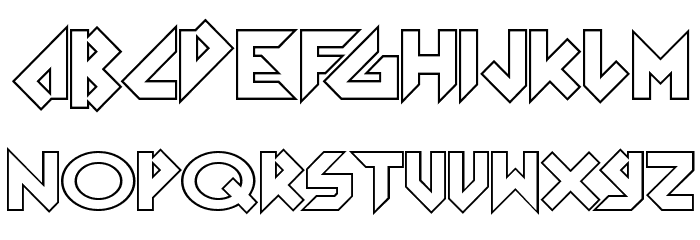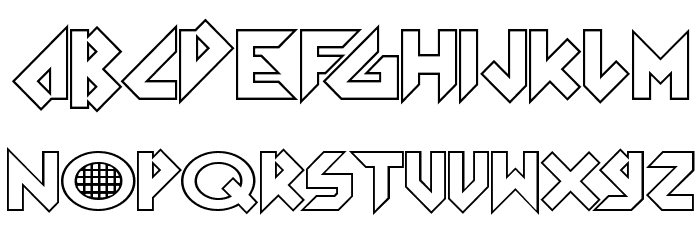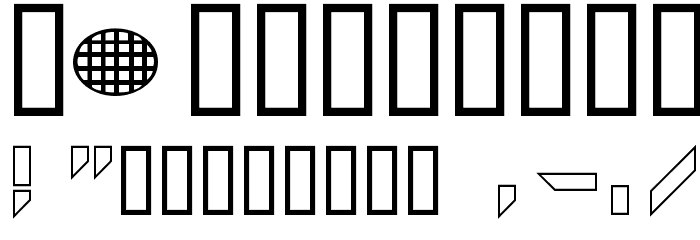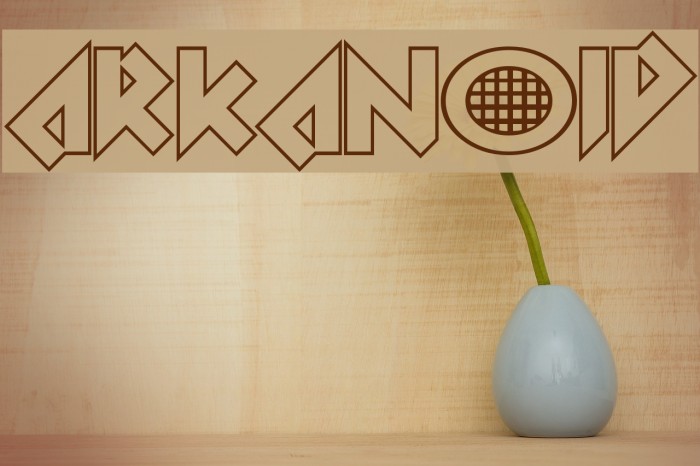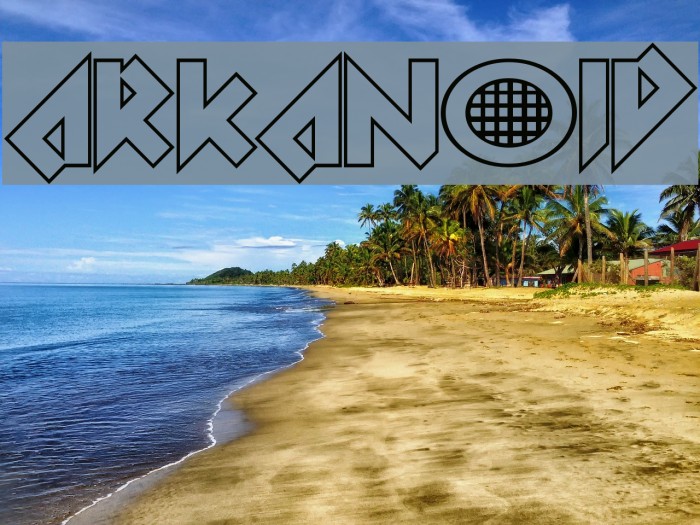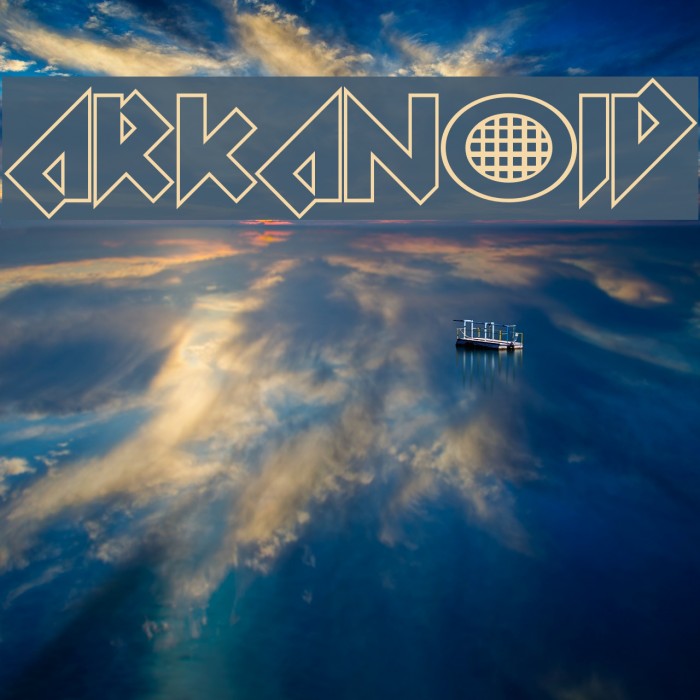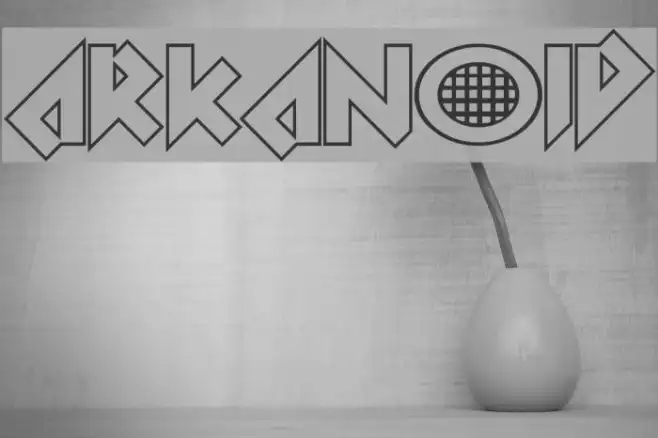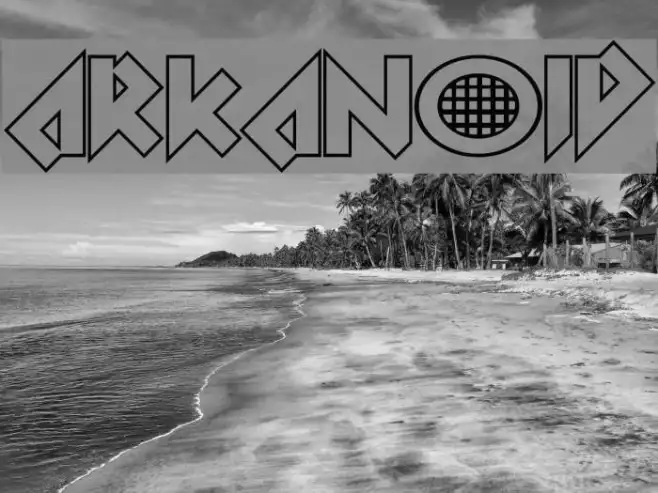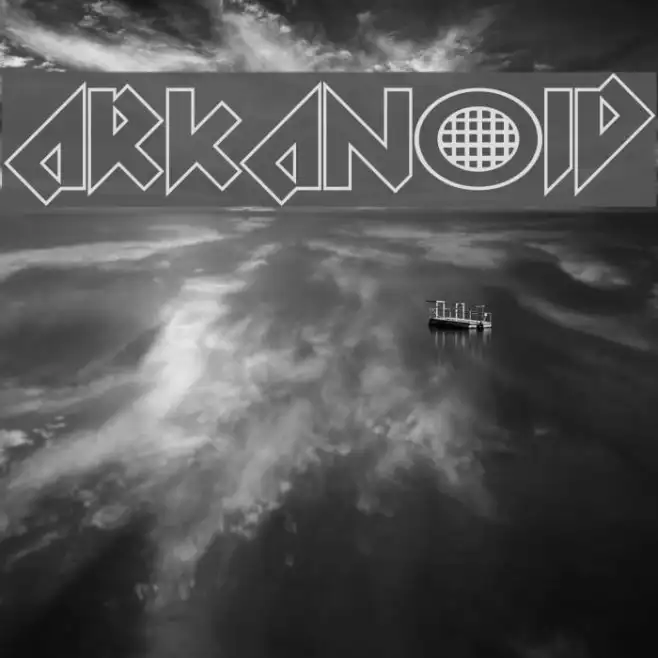
Arkanoid Font
This font features a bold, geometric design with sharp angles and a futuristic aesthetic. The uppercase letters are constructed with a series of straight lines and pointed edges, giving them a dynamic and edgy appearance. The characters are consistent in height and width, creating a uniform look across the typeface. The font includes a full set of uppercase letters, numbers, and a selection of special characters, all maintaining the same angular style. The design is reminiscent of retro-futuristic themes, making it suitable for projects that require a bold and striking visual impact.
- Proposed Projects: Ideal for video game titles, sci-fi movie posters, tech branding, and retro-themed designs.
- Overall Style: Futuristic, Retro